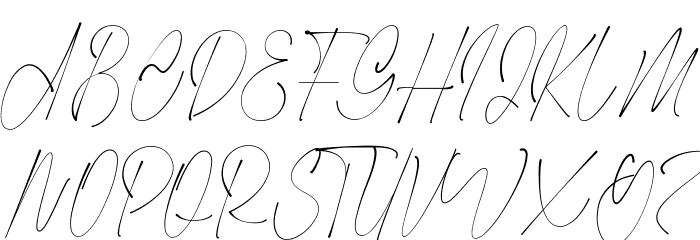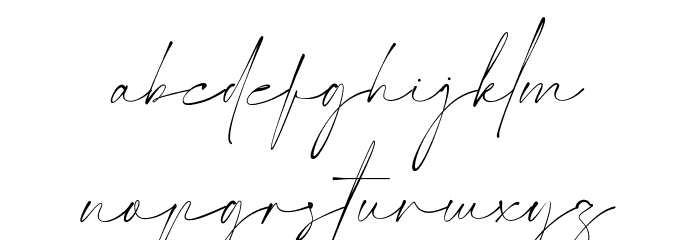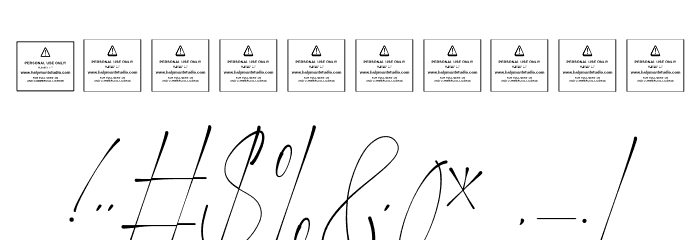
Granitta Prostyle Font
This font features a delicate and elegant script style with flowing, cursive letterforms. The characters are connected, creating a seamless and fluid appearance. The strokes are thin and graceful, with a consistent slant that adds to its sophisticated look. The uppercase letters are slightly more elaborate, while the lowercase letters maintain a more straightforward, yet equally elegant style. The numerals and special characters are designed to match the overall aesthetic, ensuring a cohesive look across all text elements.
A delicate and elegant script font with flowing, cursive letterforms.
- Font: Granitta Prostyle
- Proposed Projects: Ideal for wedding invitations, elegant branding, personal stationery, and high-end product packaging.
- Category: Script
- Weight: Light
- Overall Style: Elegant
- Use Case: Logos, Invitations, Branding